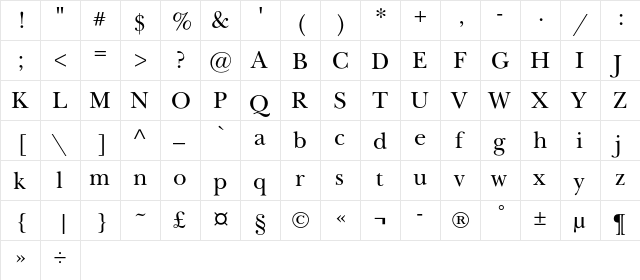
NewBaskervilleExpOdC Regular
Design Context for NewBaskervilleExpOdC Typeface
NewBaskervilleExpOdC is a composed and adaptable typeface that performs quietly and consistently across a wide range of design contexts.